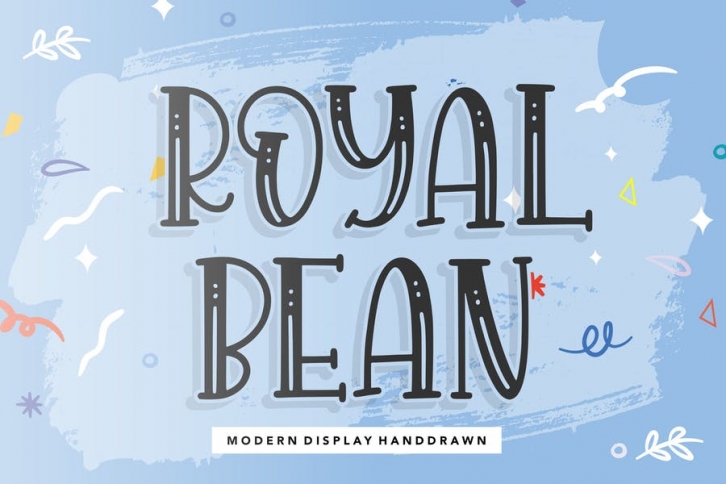
Introducing by Balpirick Studio.
Proudly Present, ROYALBEAN Font.
ROYALBEAN is a Modern Display Hand draw Font.
ROYALBEAN is perfect for product packaging, branding project, magazine, social media, wedding, or just used to express words above the background.